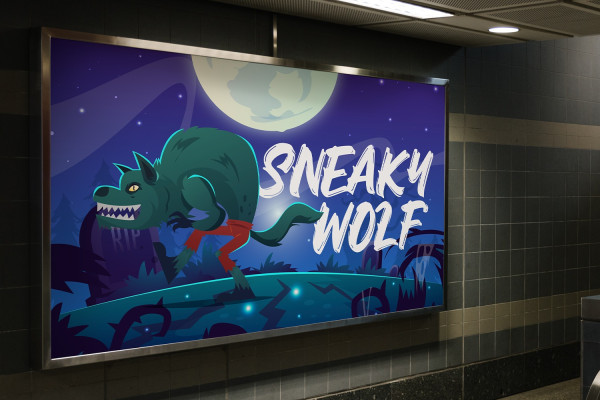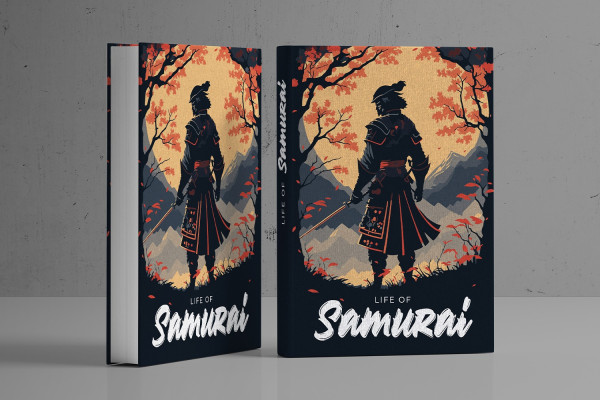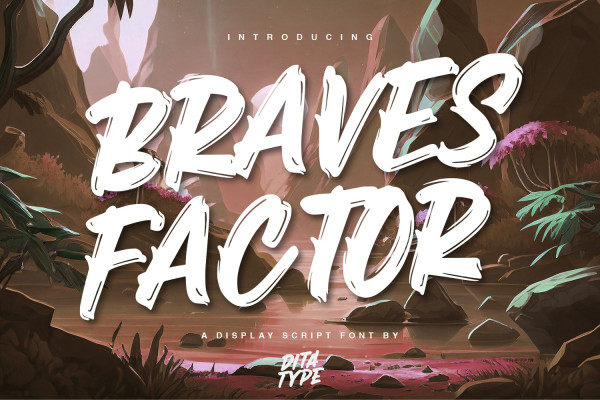
Braves Factor Font
Braves Factor Font is a display font mixture of the script font features providing capital letters in round, adorable proportions. Such round letters express so smooth, warm, friendly nuances that it is suitable to create attractive, fun nuances. In spite of the big, round shapes, this font maintains the original script font features, which are still legible, such as the smooth curves elements and the unique scratches flowing in some of the letters.
Such script elements can add beauty and personal touches to the font. Some of the letters may have curvy curves, while the others have sharp ones to show you interesting visual dynamics and to liven up the font. Furthermore, the font’s letters have been carefully crafted to be as legible as possible without ignoring its aesthetic parts. In addition, you may enjoy the available features here as well.
Braves Factor fits best for any design projects requiring prominent, yet friendly displays such as titles, logos, posters, brandings, advertisements, and so on. Find out more ways to use this font by taking a look at the font preview.